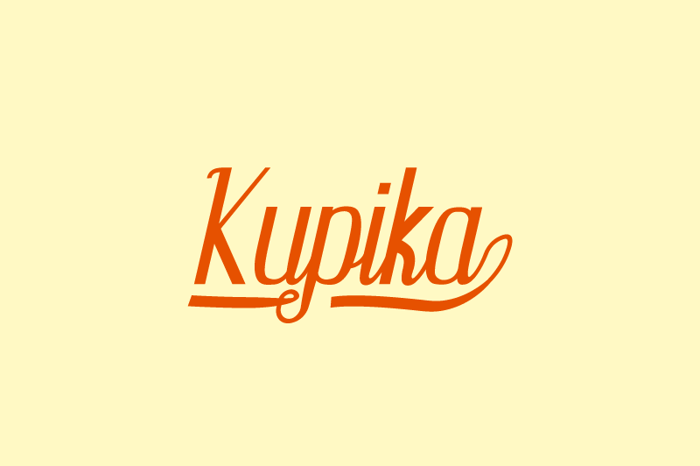
Kupika Font
Kupika is a modern and sweet calligraphy script font with a playful tone. Get inspired by this one-of-a-kind typeface!
For you who needs a typeface for headline, logotype, apparel, invitation, branding, packaging, advertising etc.